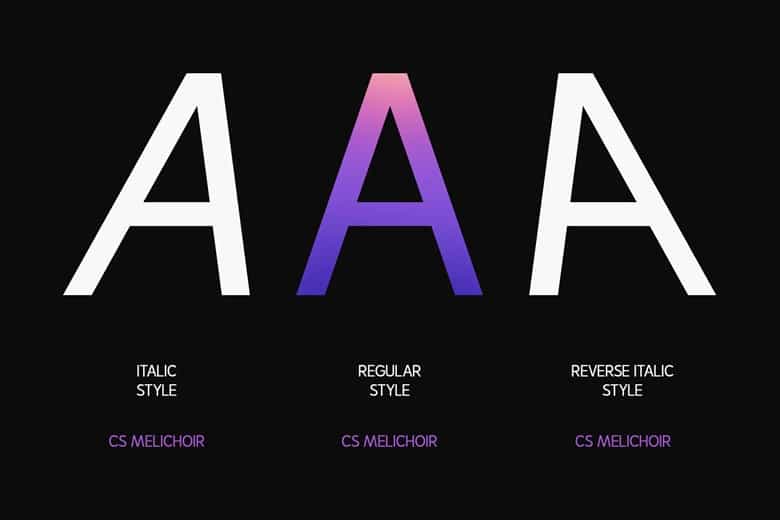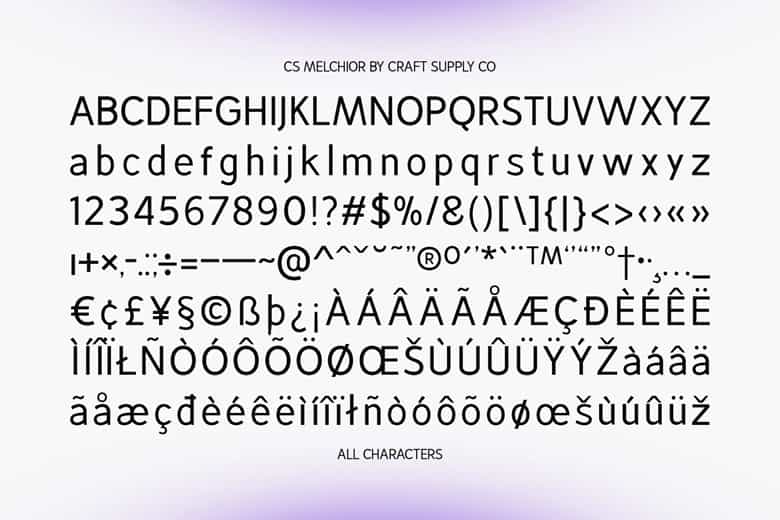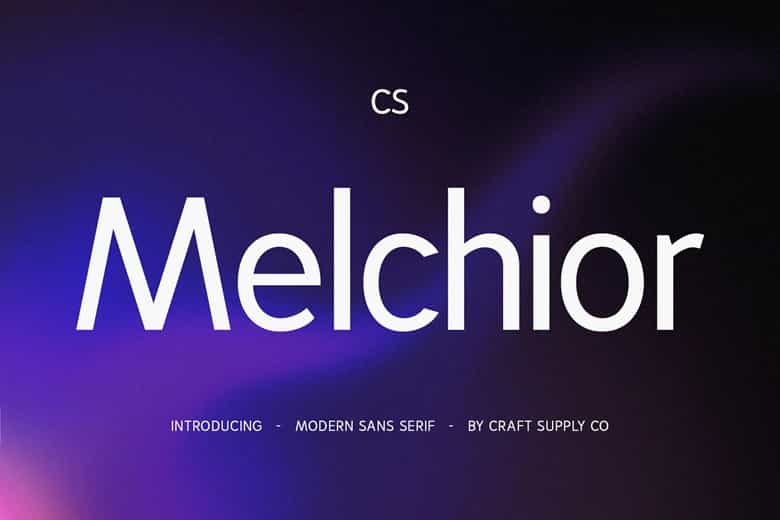
CS Melchior is a contemporary sans serif typeface with its clear and contemporary geometric look. Combination of straight lines, accurate angles, and harmonious curves makes it structured, stylish and visually satisfying, especially the balance between minimalism and sophistication. This style of design is ideal when it comes to a project that needs clarity, elegance and professional presence.